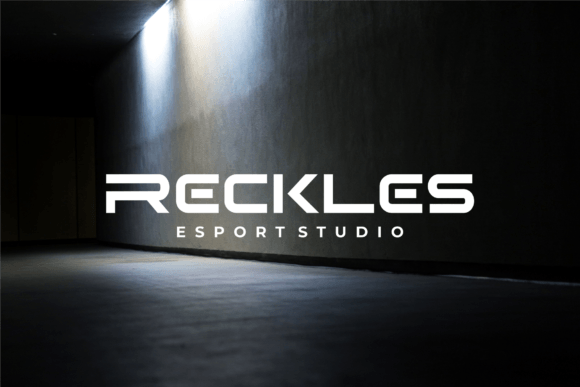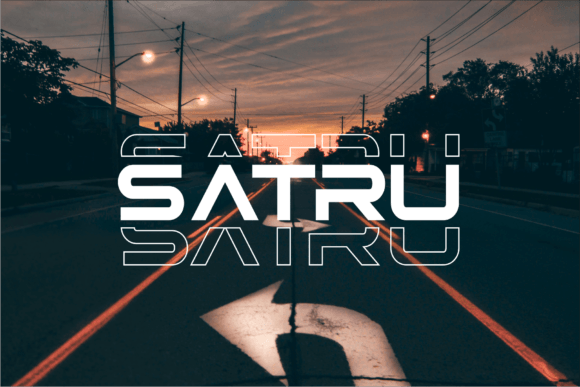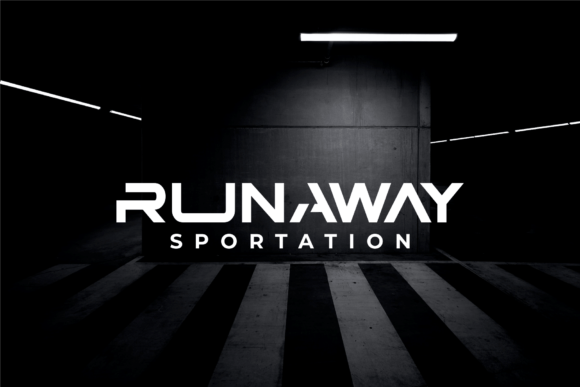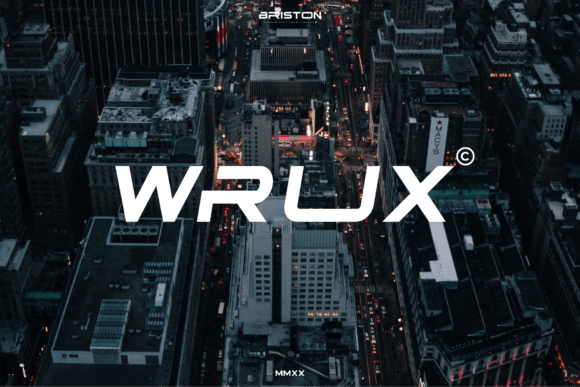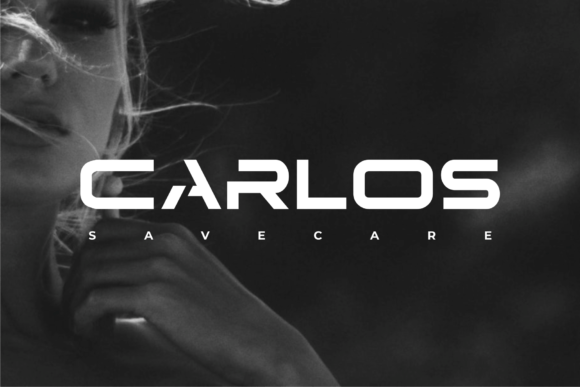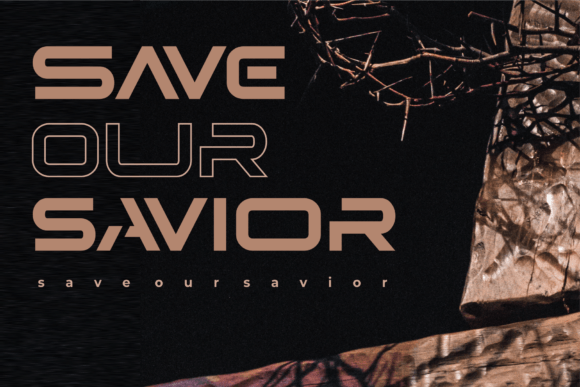
The Perfect Blend of Bold and Soft: Discovering the Briston Font
Have you ever been stuck on a design project, struggling to find the perfect font to convey your message? It’s a familiar feeling for many creatives. I recall one particular instance when I was working on a branding project and couldn’t seem to find the right balance between bold and soft. That’s when I stumbled upon the Briston Font, and everything fell into place.
The Briston Font is a strong, bold sans serif font with solid lines and bold yet soft rounding, making it perfect for a wide range of applications, from logotypes and signage to branding, apparel, and posters. Its versatility and unique character make it an invaluable tool for designers looking to add a touch of sophistication and elegance to their work.
- Font Family: Briston Font is a sans-serif font family.
- Unique Characteristics: Briston Font features clean lines, geometric shapes, and a modern aesthetic, making it suitable for contemporary designs.
Briston Font Review
Overall, I think the Briston font is a solid addition to any designer’s toolkit. It’s a modern sans-serif font that works well for a variety of applications, from digital interfaces to print materials. Here are some of its strengths:
- ✨ Elegant and refined aesthetic: Briston’s clean lines and rounded edges give it a sophisticated feel that works well in high-end branding and design projects.
- ✨ Highly legible: The font is well-suited for both body text and headings, making it a great choice for digital interfaces and publications.
- ✨ Wide language support: Briston includes a comprehensive character set, making it a good choice for projects that require multilingual support.
That being said, there are some limitations to consider:
- ⚠️ Limited expressiveness: While Briston is great for clean, straightforward designs, it may not be the best choice for projects that require a lot of personality or flair.
- ⚠️ Not ideal for display use: While Briston works well for body text, it may not be the best choice for headings or titles, where a more dramatic or eye-catching font is often preferred.
Overall, I think the Briston font is a solid choice for designers who want a modern, elegant sans-serif font that works well for a variety of applications. While it may not be the best choice for every project, it’s definitely worth considering for designs that require a clean, refined aesthetic.
Tips for Getting the Most Out of Briston Font
Here are a few tips to help you get the most out of Briston Font:
– Use Briston Font for headings and titles to create a visually appealing contrast.
– Experiment with different font sizes and styles to create a unique look.
– Pair Briston Font with other fonts to create a harmonious typography.
Common Use Cases for Briston Font
Briston Font is commonly used for:
– Headings and titles in design projects.
– Logos and branding materials.
– Editorial and publishing projects.
Alternatives to Briston Font
Montserrat is a sans-serif font designed for digital use. It’s a great alternative to Briston Font for modern and urban designs. Montserrat has a more geometric and technical feel, making it perfect for tech-related projects or designs that require a clean and minimal look.
Comparison: Montserrat has a more geometric feel and is more suitable for digital use, whereas Briston Font has a more elegant and classic feel. Montserrat is also more versatile and can be used in a wider range of designs.
Lato is a sans-serif font designed for on-screen use. It’s a great alternative to Briston Font for designs that require a friendly and approachable feel. Lato has a more rounded and soft feel, making it perfect for designs that target a younger audience.